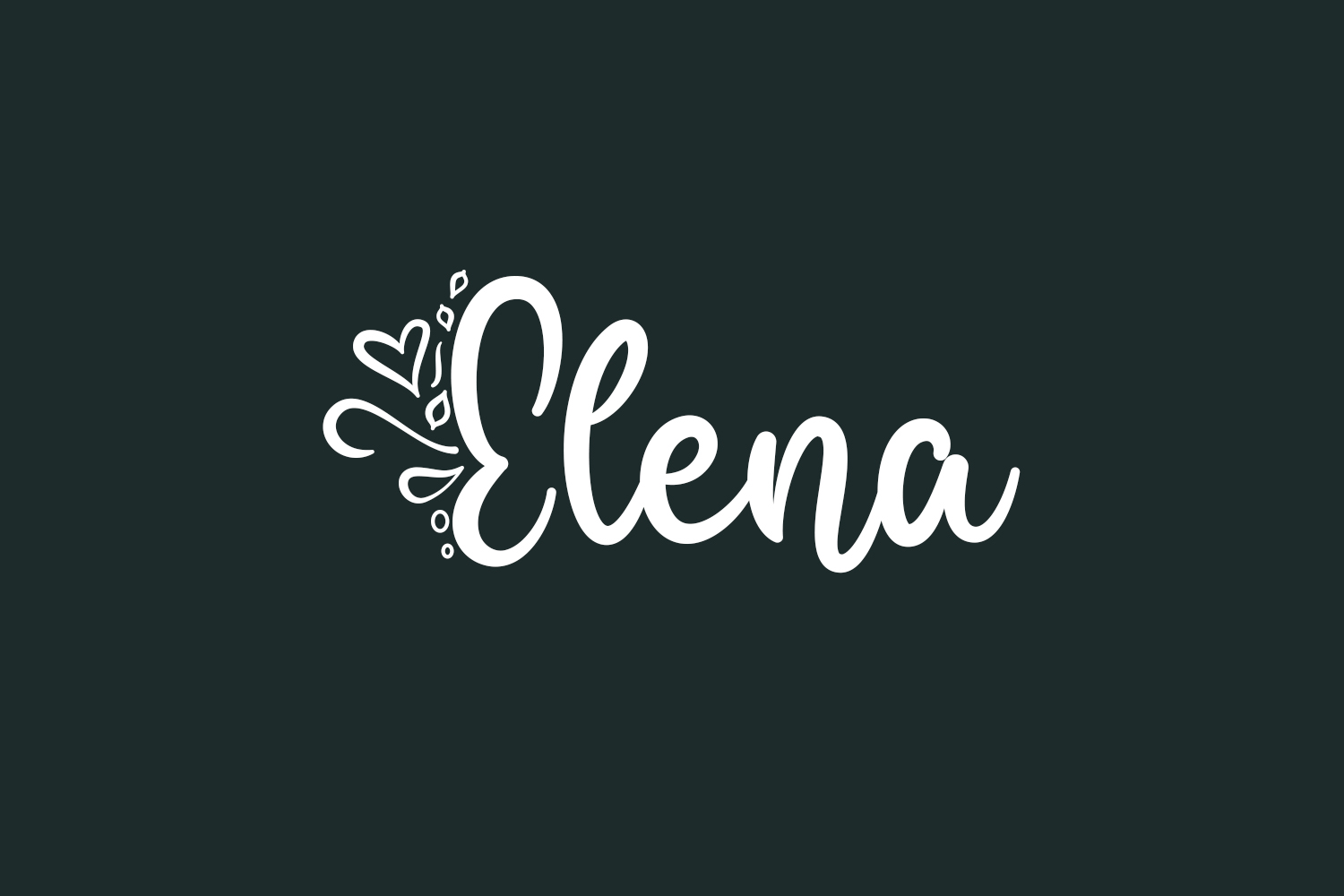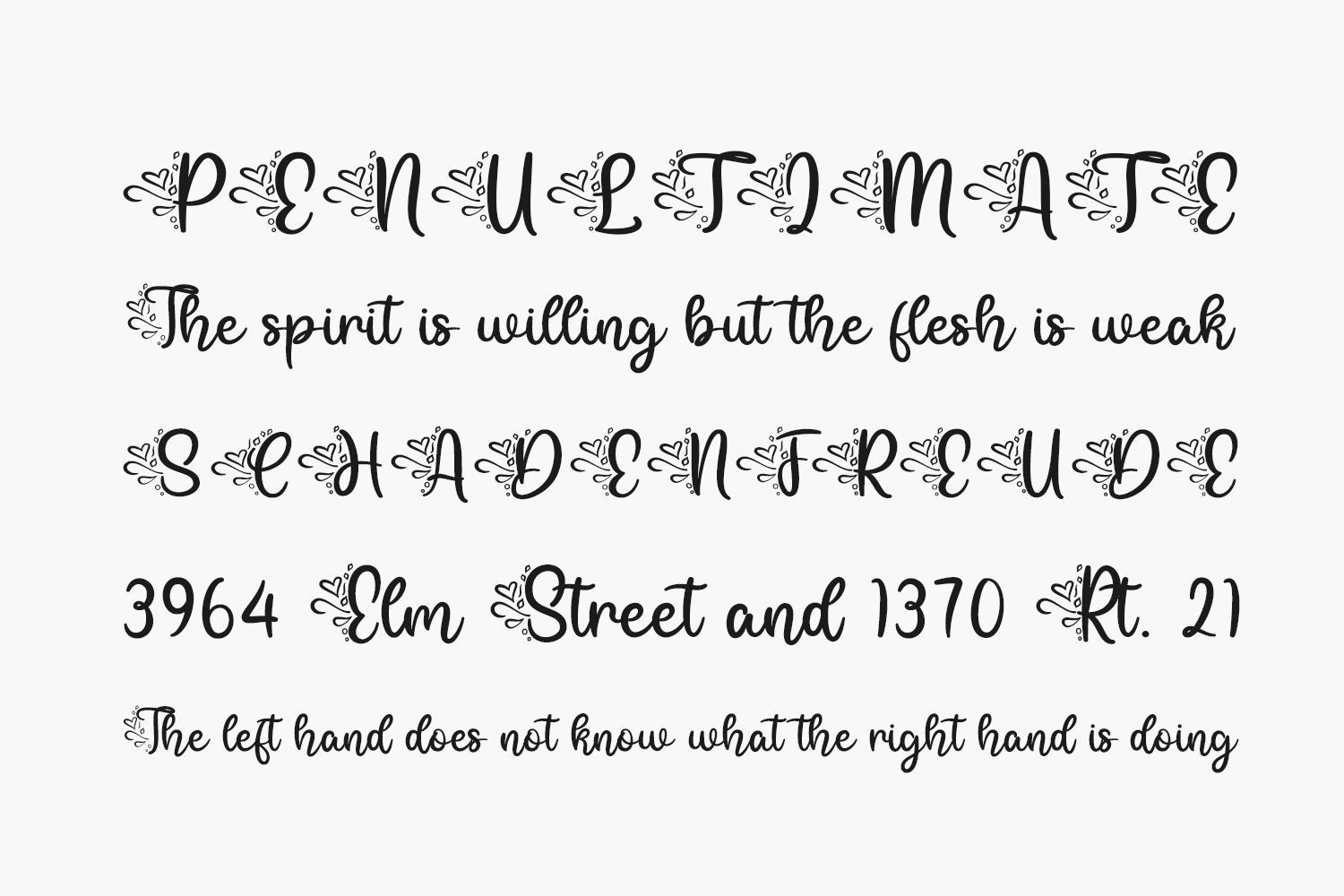
Elena Free Font is a delicate script font. You can use it to create gorgeous wedding invitations, beautiful stationary art, eye-catching social media posts, and much more. Elena Free Font was designed by Letter Art Studio and is free for personal use only. Please purchase the full version for commercial use.